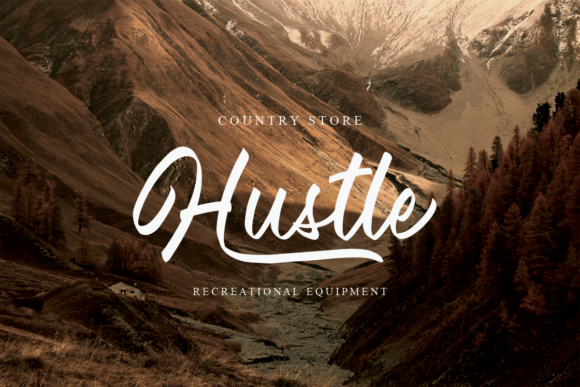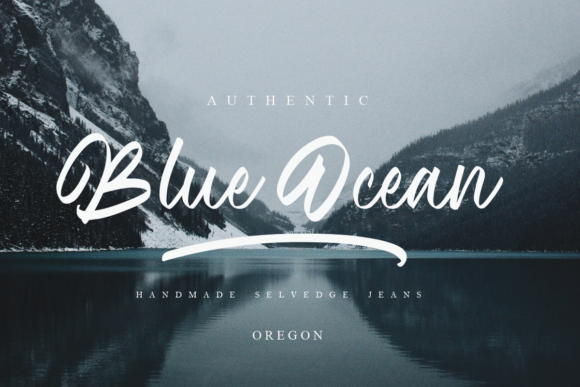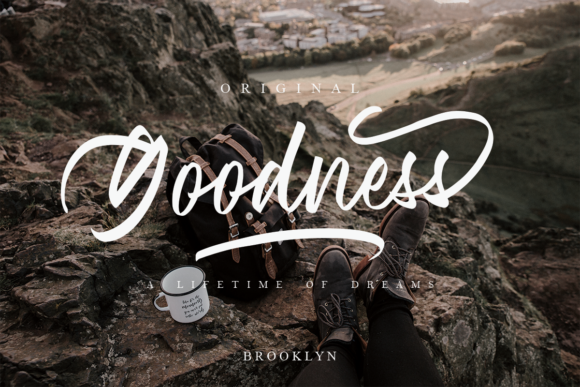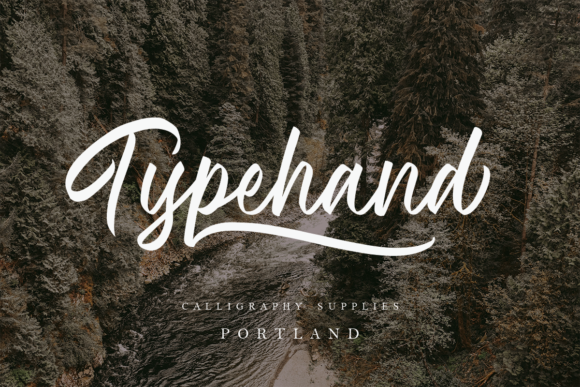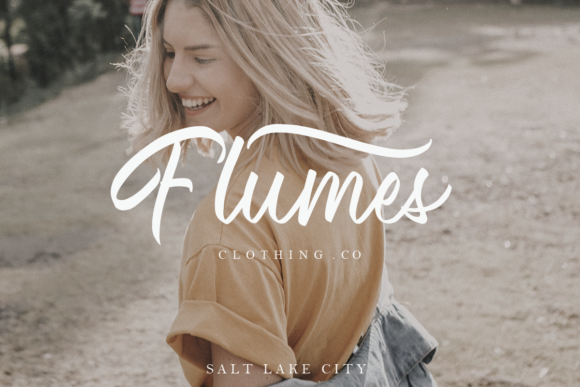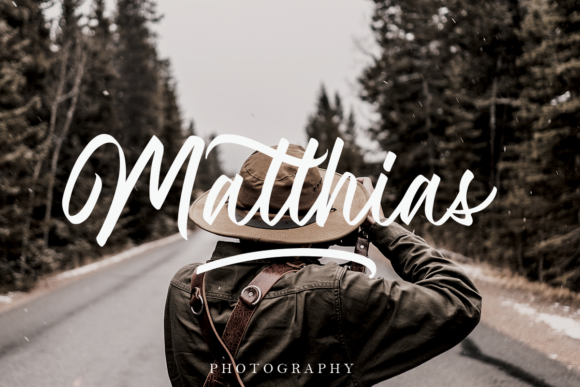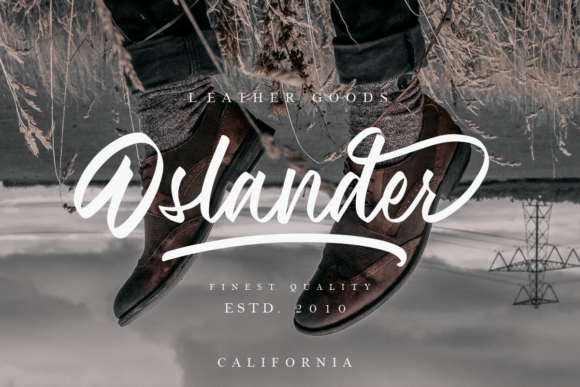
Wilderness Font
About Wilderness Font
The Wilderness is a beautiful calligraphy font. It has an flowing handwritten style with a quick sweep and distinctive style.